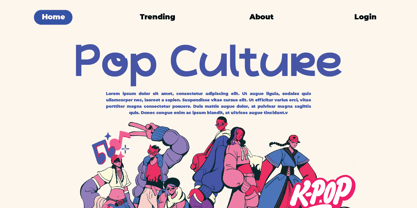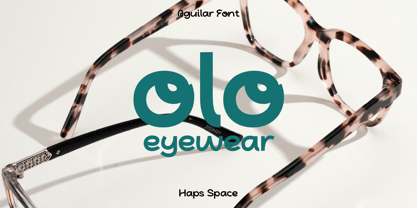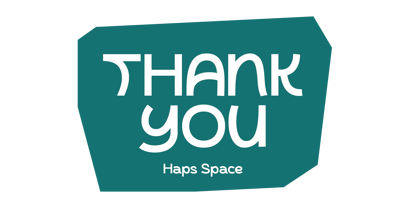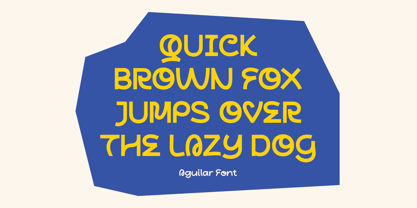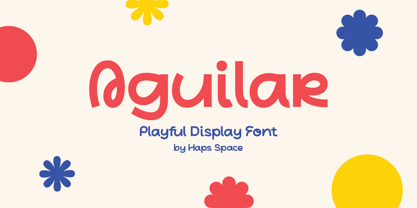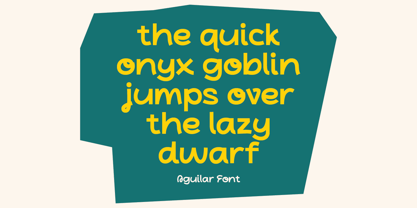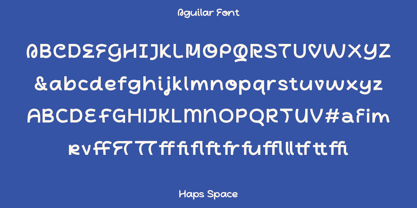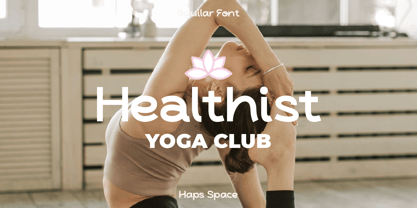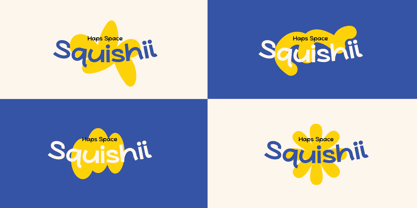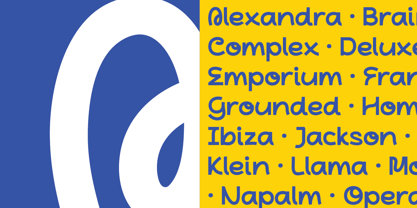
Aguilar Playful Display
by Haps Space
The Aguilar Playful Display Font Family was designed by Haris Purnama Putra, Egi Ahmad Mufid and published by Haps Space. Aguilar Playful Display contains 1 styles. More about this family
Aguilar Playful Display Font is a Playful Sans-Serif comes with alternatives and ligatures, helps to create stunning Posters, Branding, Tshirt, Social Media Graphics and much more.
Designers: Haris Purnama Putra, Egi Ahmad Mufid
Foundry: Haps Space